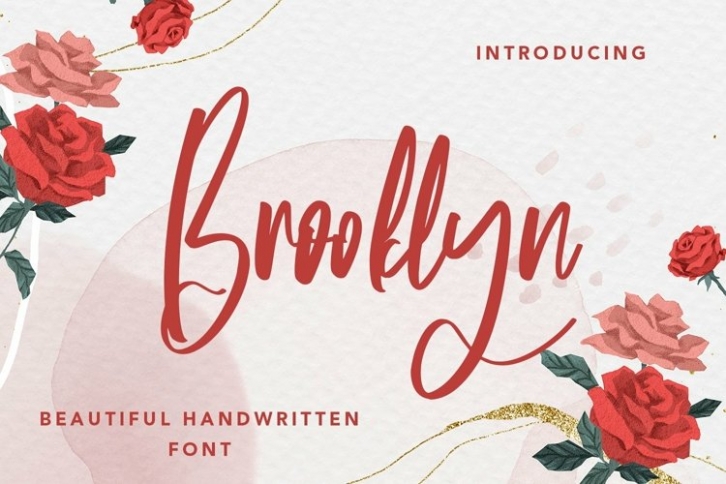
Web Brooklyn is a gorgeous font that was realeased on August 28, 2021. The font can be used in many style contexts and design environments. Perfect for invitations, magazines, websites, logos, and more! It was designed by plusstore and the file size is 16.39 MB. Thanks for checking out this font!